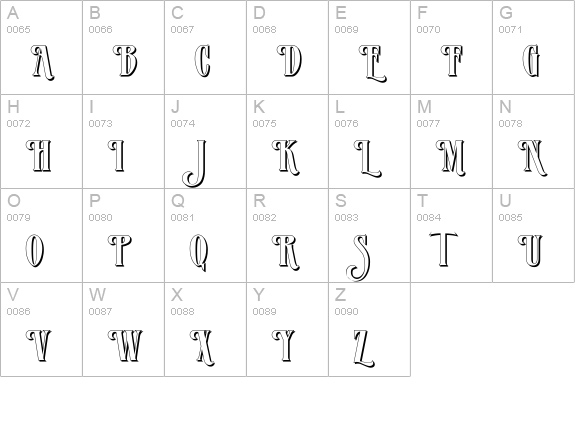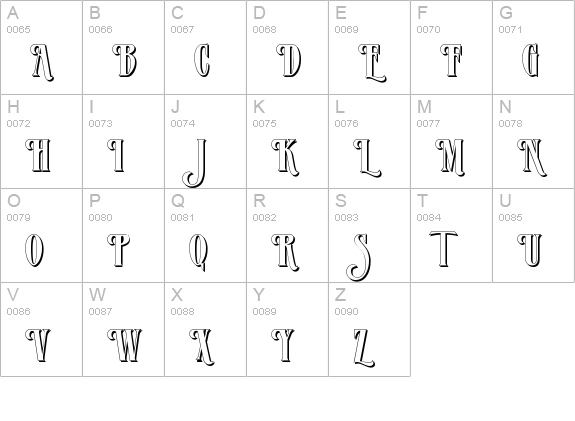
VerveShadowAlternate Font Details
VerveShadowAlternate is a striking and modern font that exudes sophistication and style. With its sleek lines and elegant curves, this font is perfect for creating eye-catching designs that demand attention. The alternate version of VerveShadow offers a unique twist, adding a touch of creativity to your projects. This versatile font is ideal for a wide range of design projects, from branding and advertising to packaging and social media graphics. Its clean and contemporary look makes it a popular choice for designers looking to make a statement. And the best part? VerveShadowAlternate is completely free to download at FontsMarket.com! So you can add this stunning font to your collection without breaking the bank. Don't miss out on the opportunity to elevate your designs with this amazing font. Download VerveShadowAlternate today and let your creativity shine!